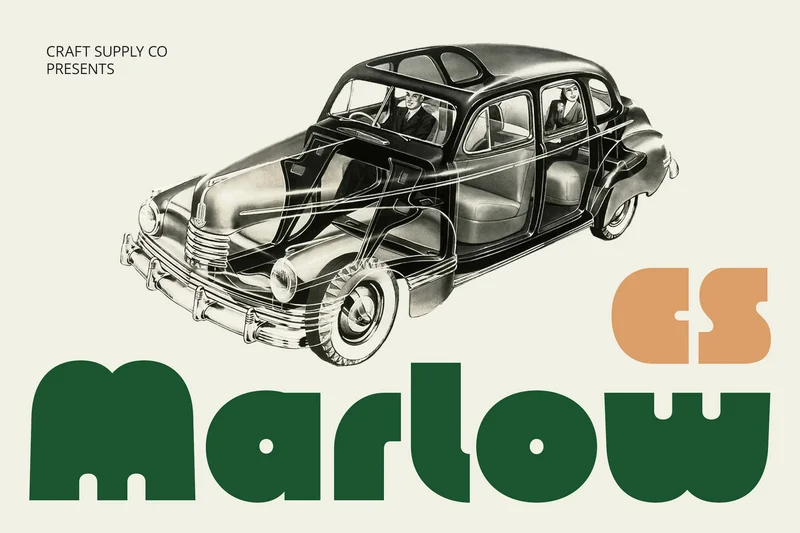
Marlow – Bold Font
CS Marlow – Bold Font: Retro Funk Meets Modern Impact
Striking Boldness with a Funky Twist CS Marlow is a bold display sans serif font that merges the clean strength of classic typography with the lively energy of retro funk. Its strong presence and playful personality make it a standout choice for projects that need both confidence and charm.
Clean Lines with Unique Character Designed with crisp, balanced letterforms, CS Marlow offers clarity and impact while retaining a distinctive edge. The retro funky influence adds a spark of creativity, ensuring the font feels both timeless and refreshingly different.
Perfect for Playful Yet Professional Designs Ideal for music posters, creative logos, and product packaging, CS Marlow strikes the perfect balance between fun and professionalism. It captures attention instantly while maintaining a polished, design-forward look.
Versatile for Bold Visual Statements From event branding to advertising materials, CS Marlow adapts effortlessly to different formats. Its bold form commands attention in large displays, while its clean construction ensures excellent readability across media. This makes it a versatile asset for designers seeking a font with personality and punch. This combination of vibrancy and functionality makes CS Marlow a versatile choice for designers seeking a font with retro flair and modern impact.